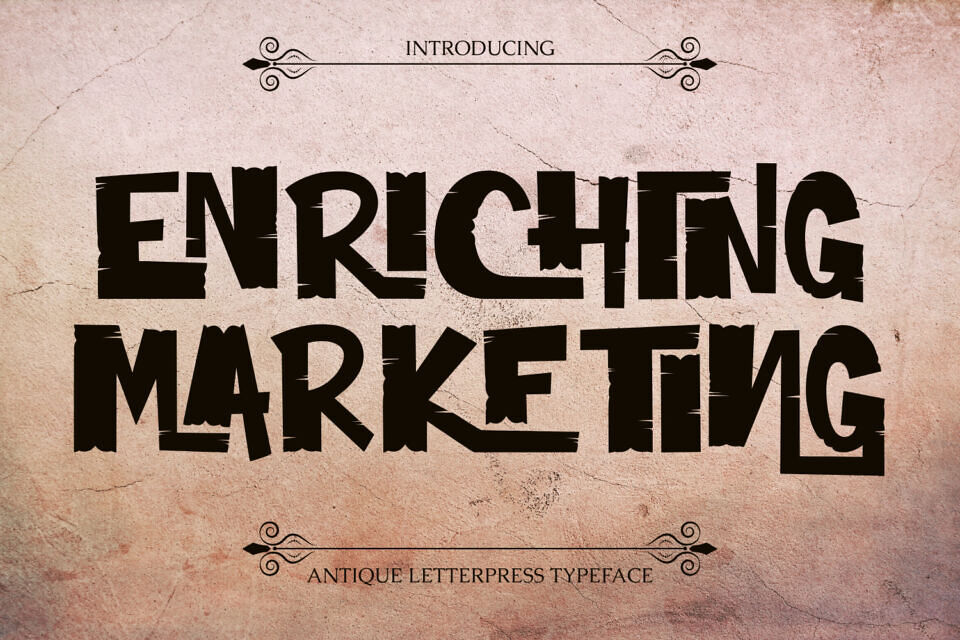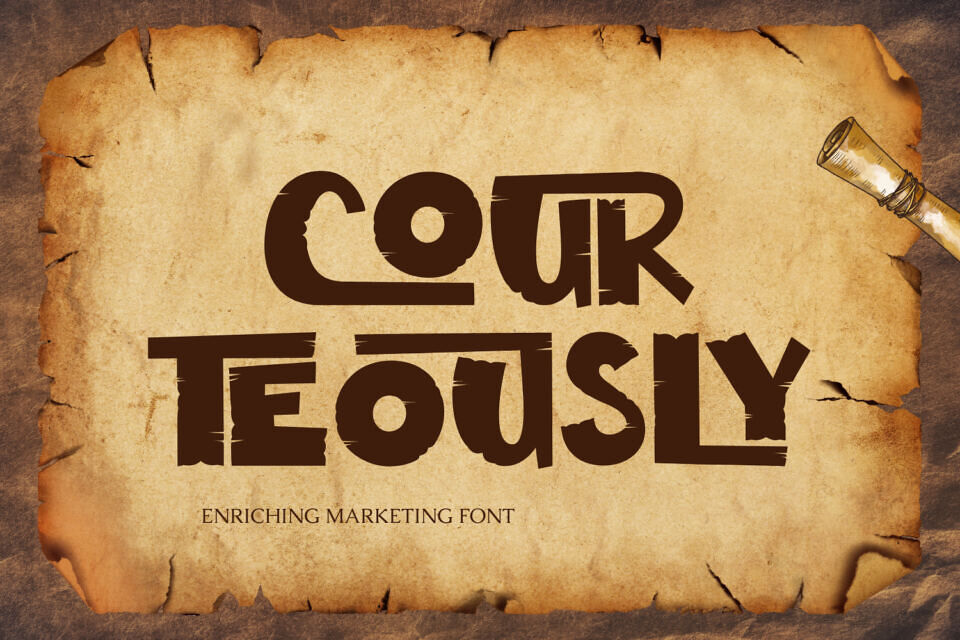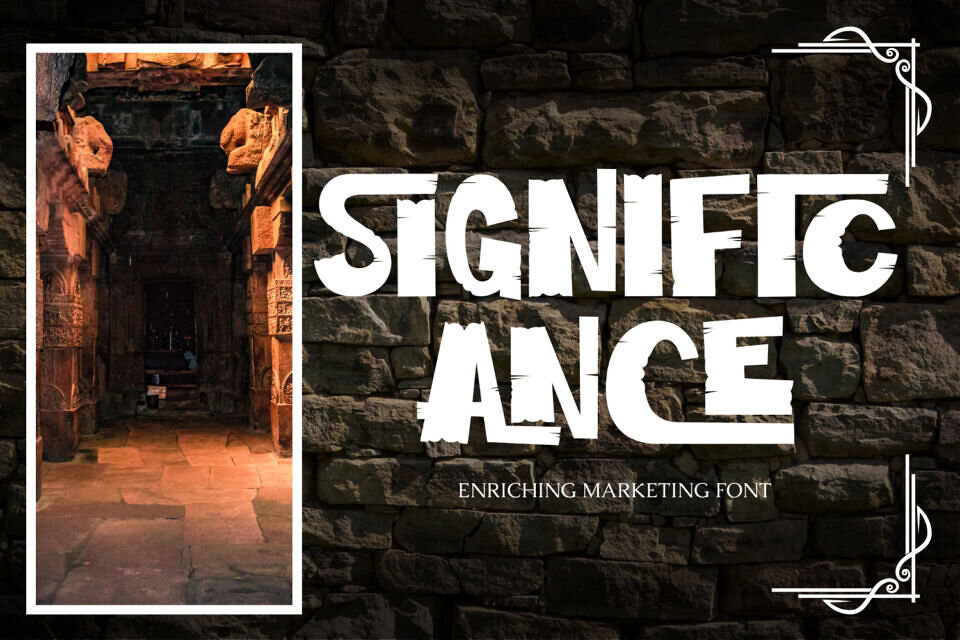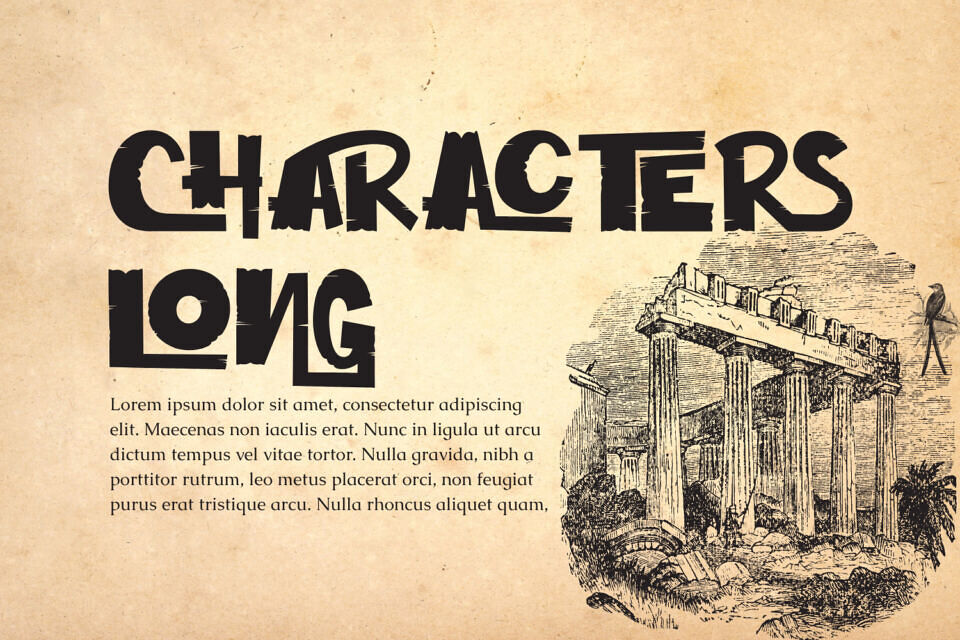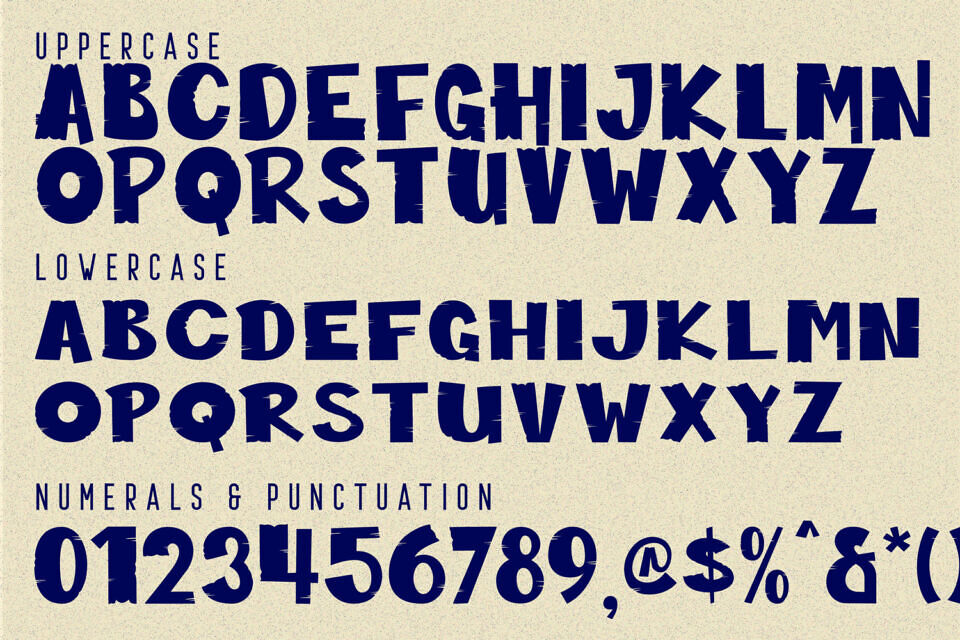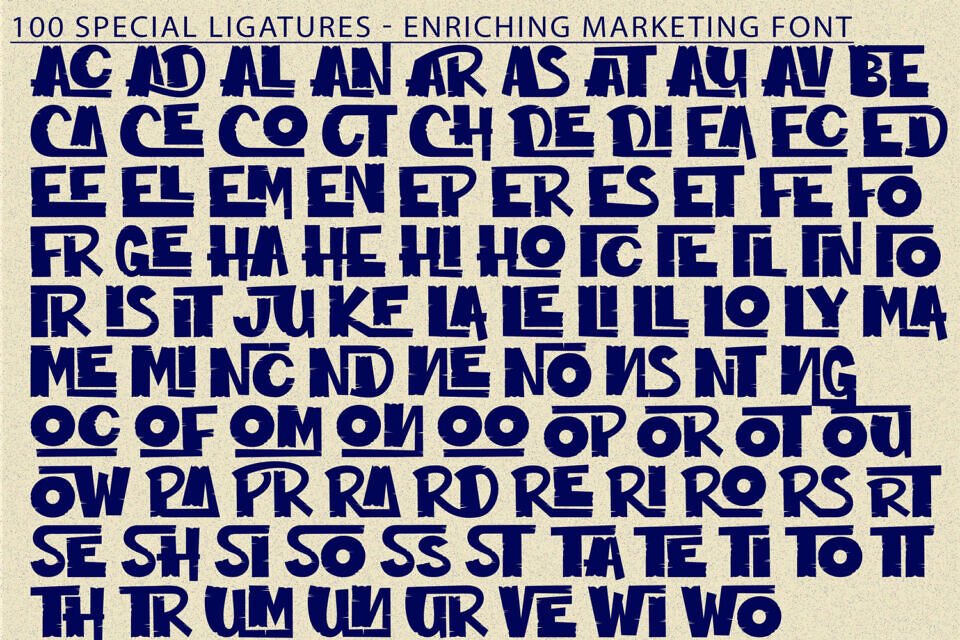
Enriching Marketing Font
Enriching Marketing is a bold rough sans serif display font with a strong industrial and grunge-inspired character. This typeface features heavy block letterforms combined with distressed edges, uneven cuts, and raw texture details that create a powerful, rugged, and rebellious look.
Enriching Marketing is designed to feel energetic and unapologetic, capturing the spirit of street art, punk culture, underground posters, and handcrafted typography. The rough strokes and imperfect contours add a handmade, worn-in quality, making every word feel bold, authentic, and full of attitude.